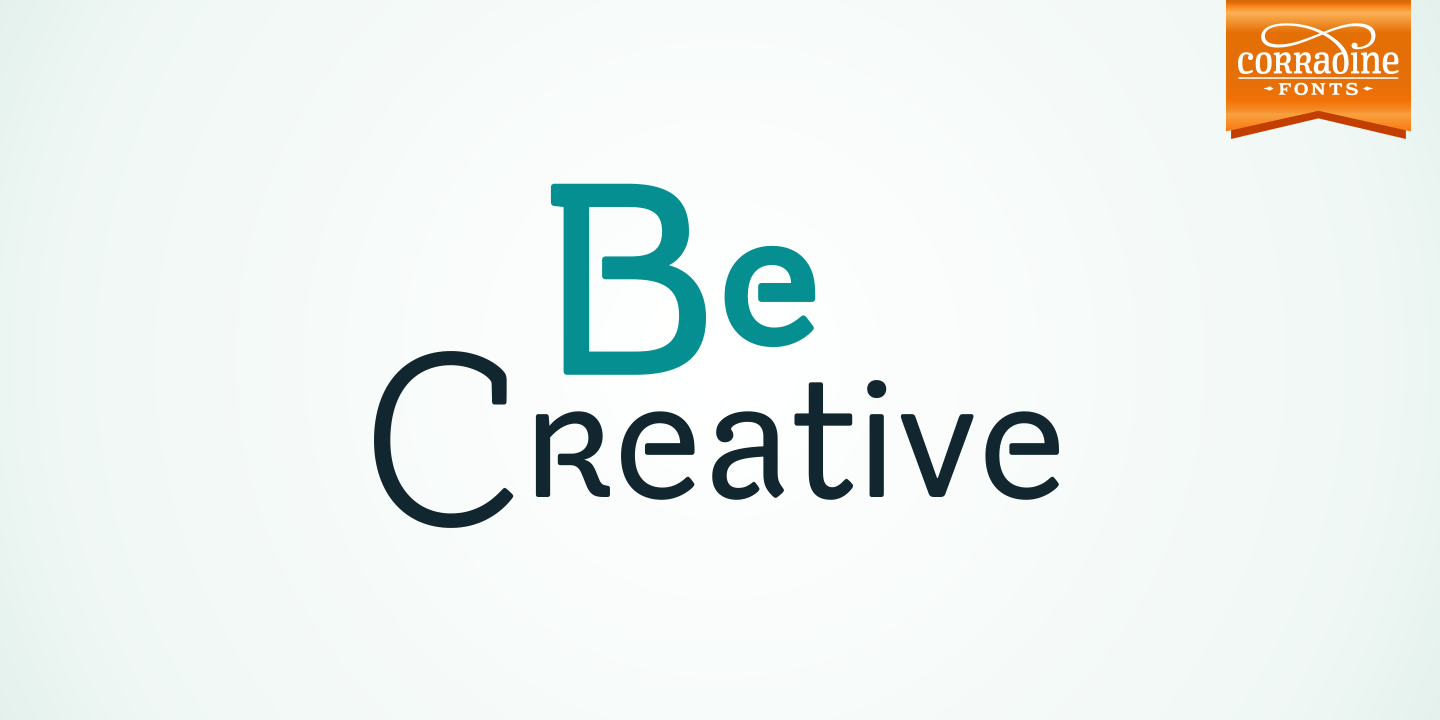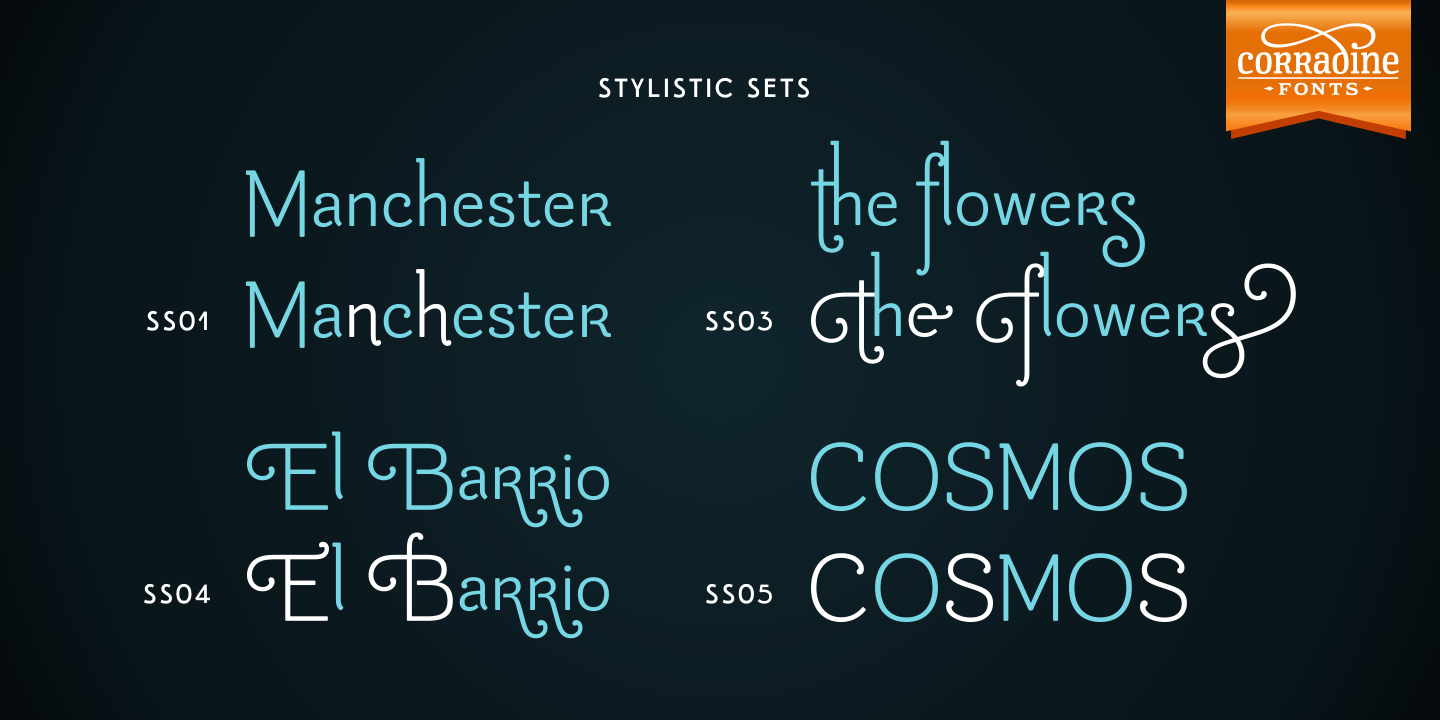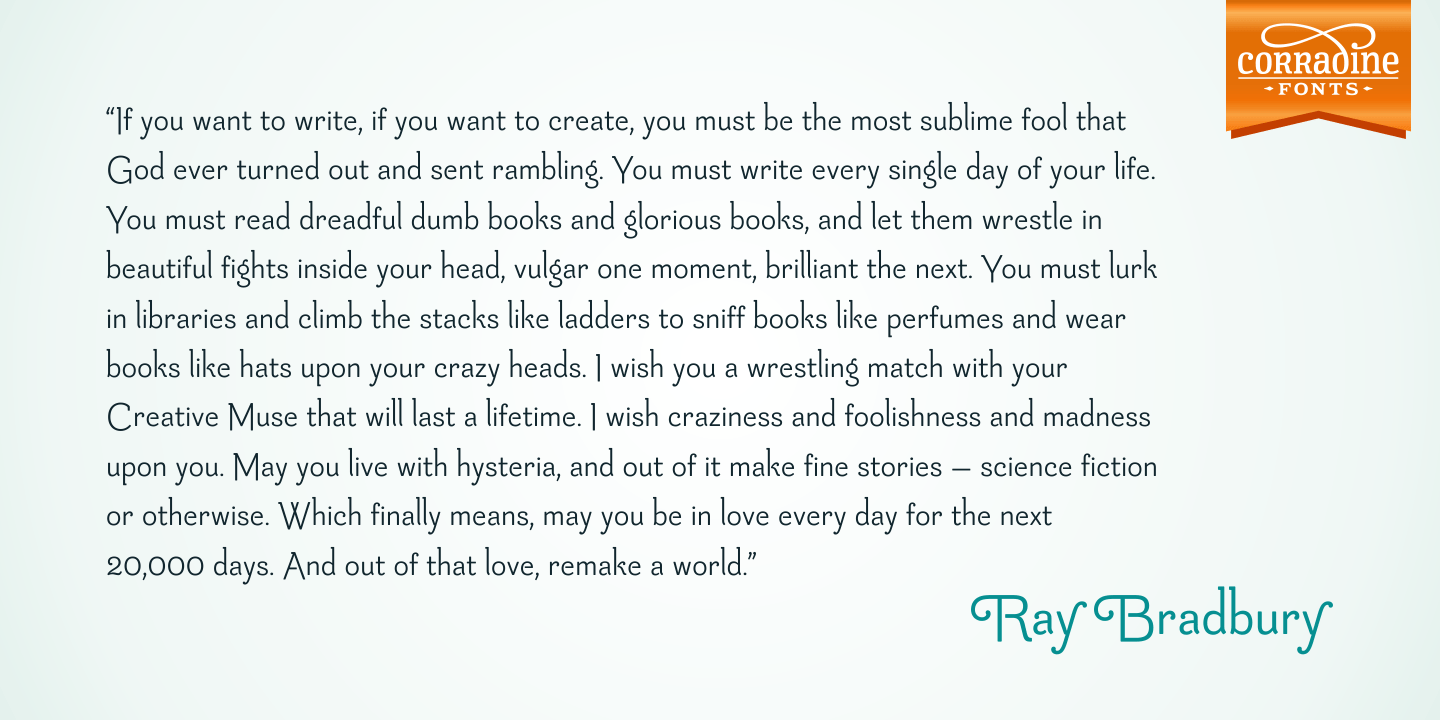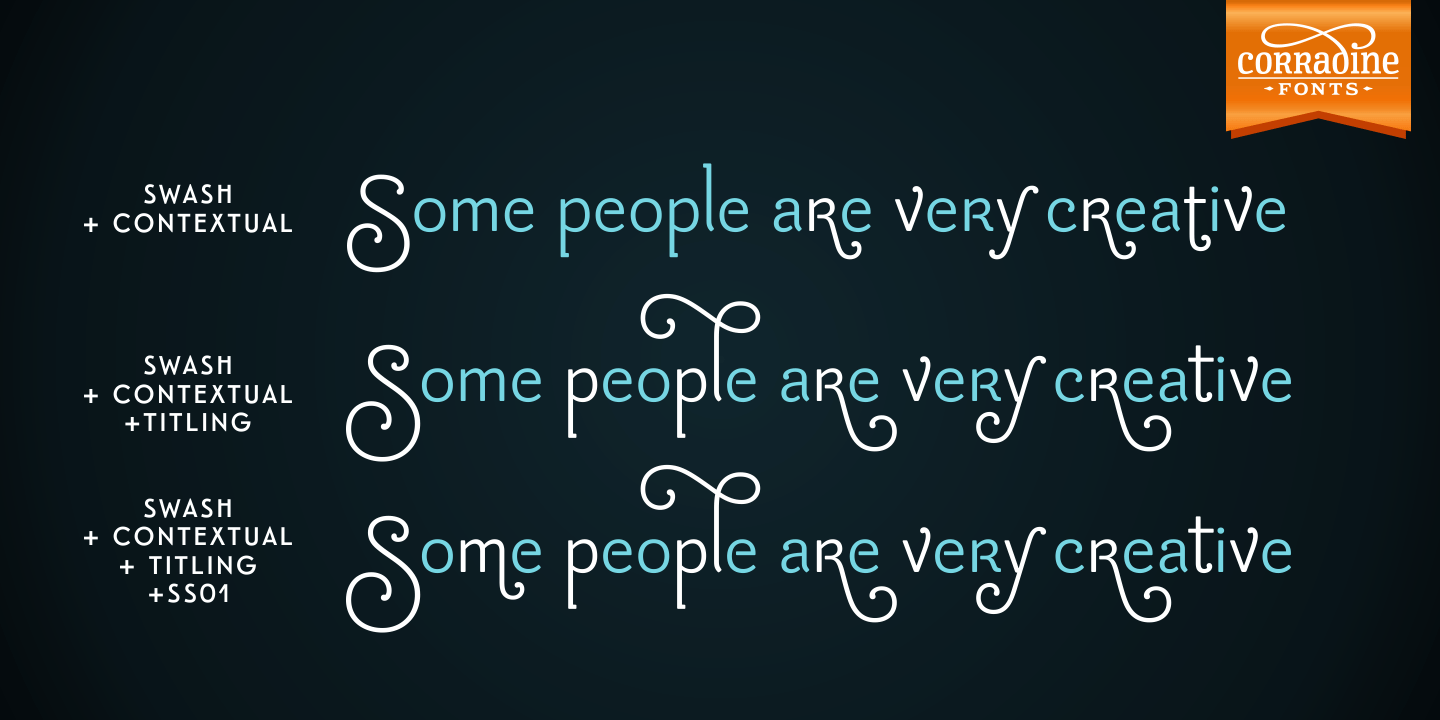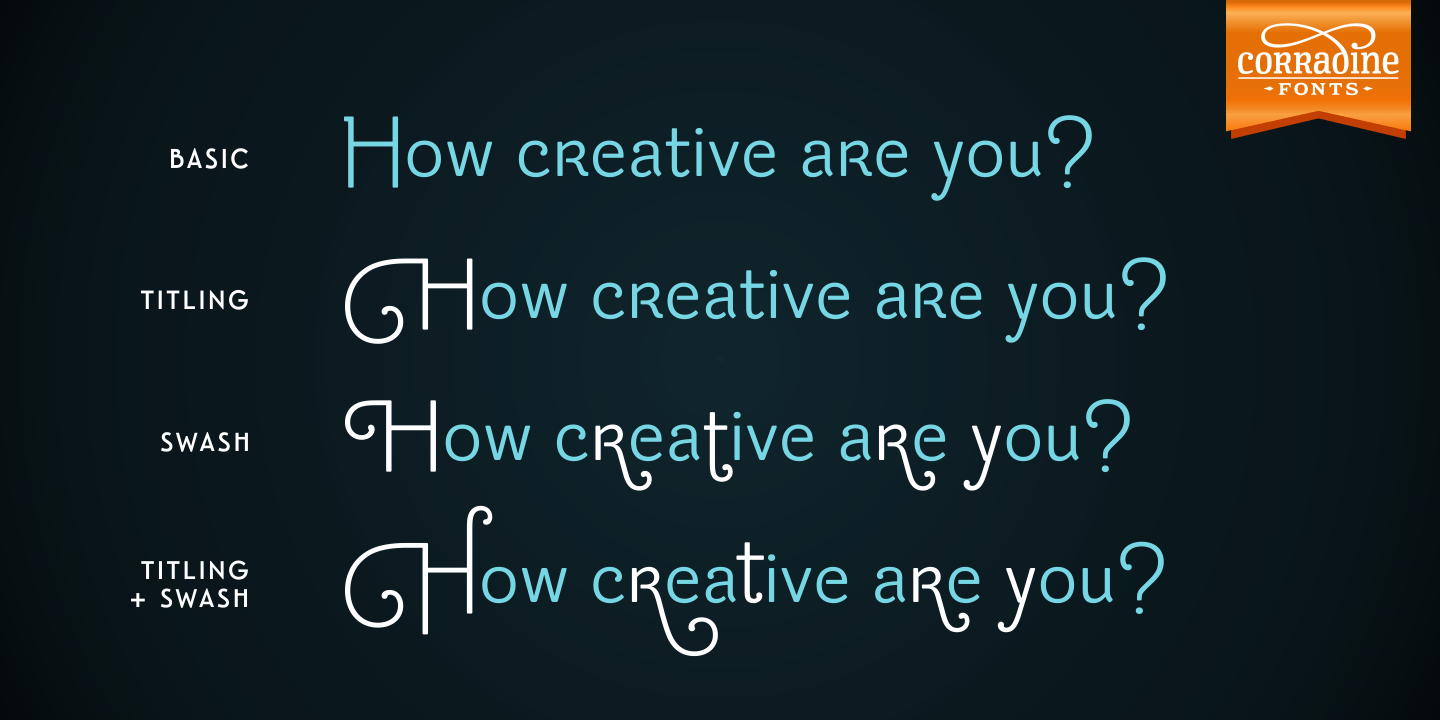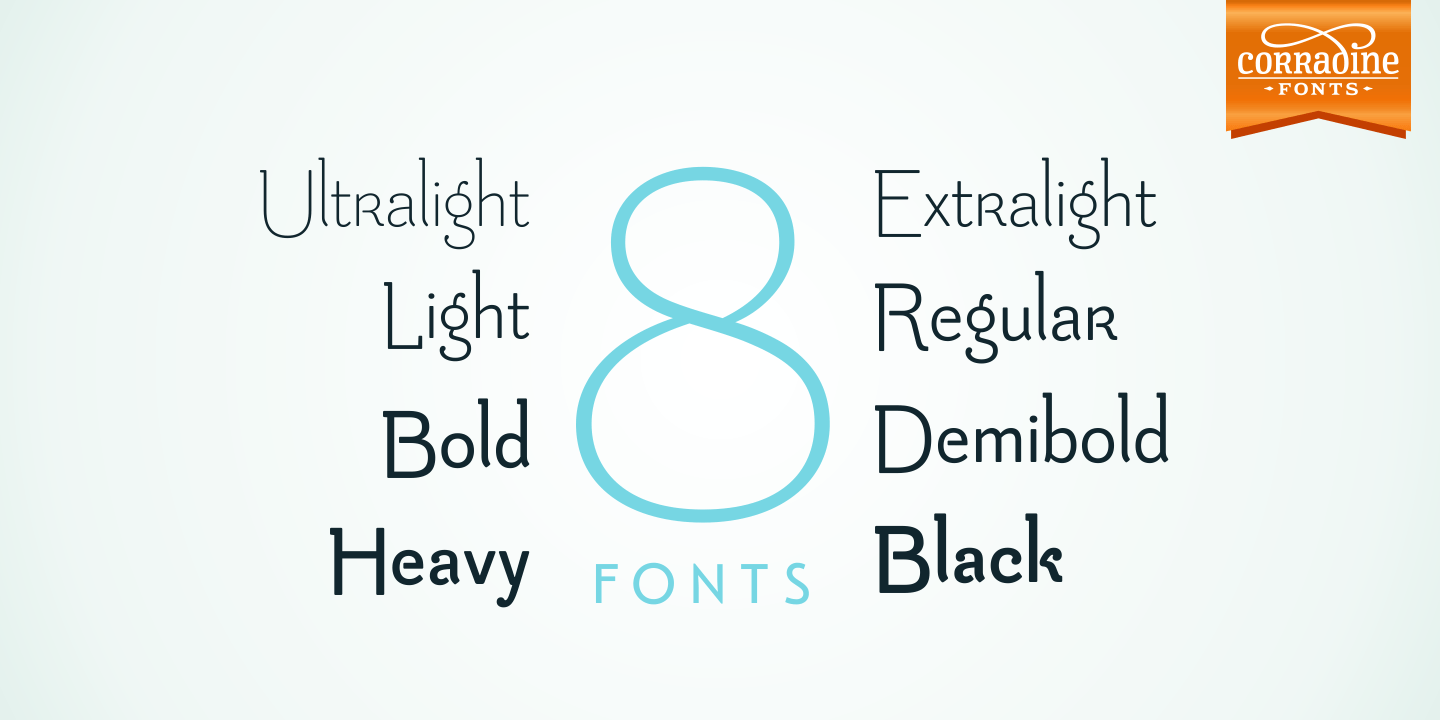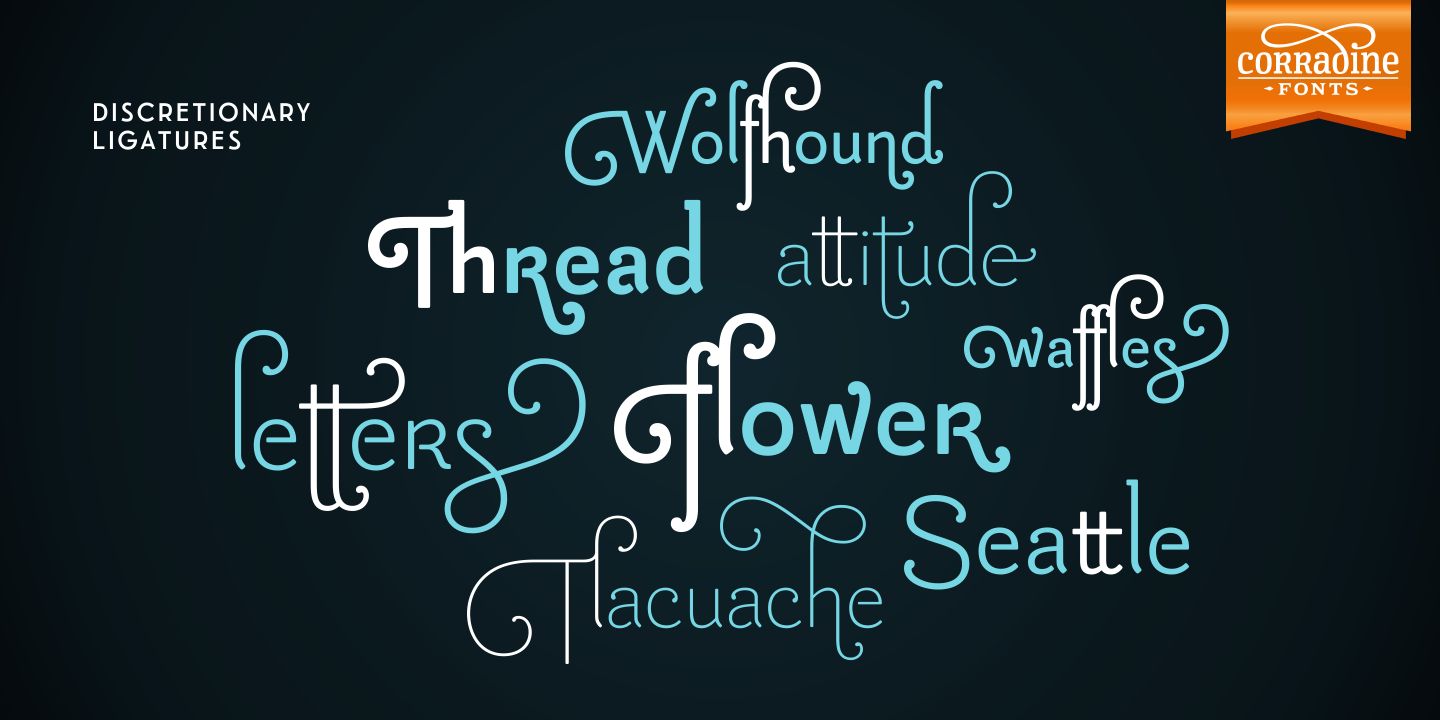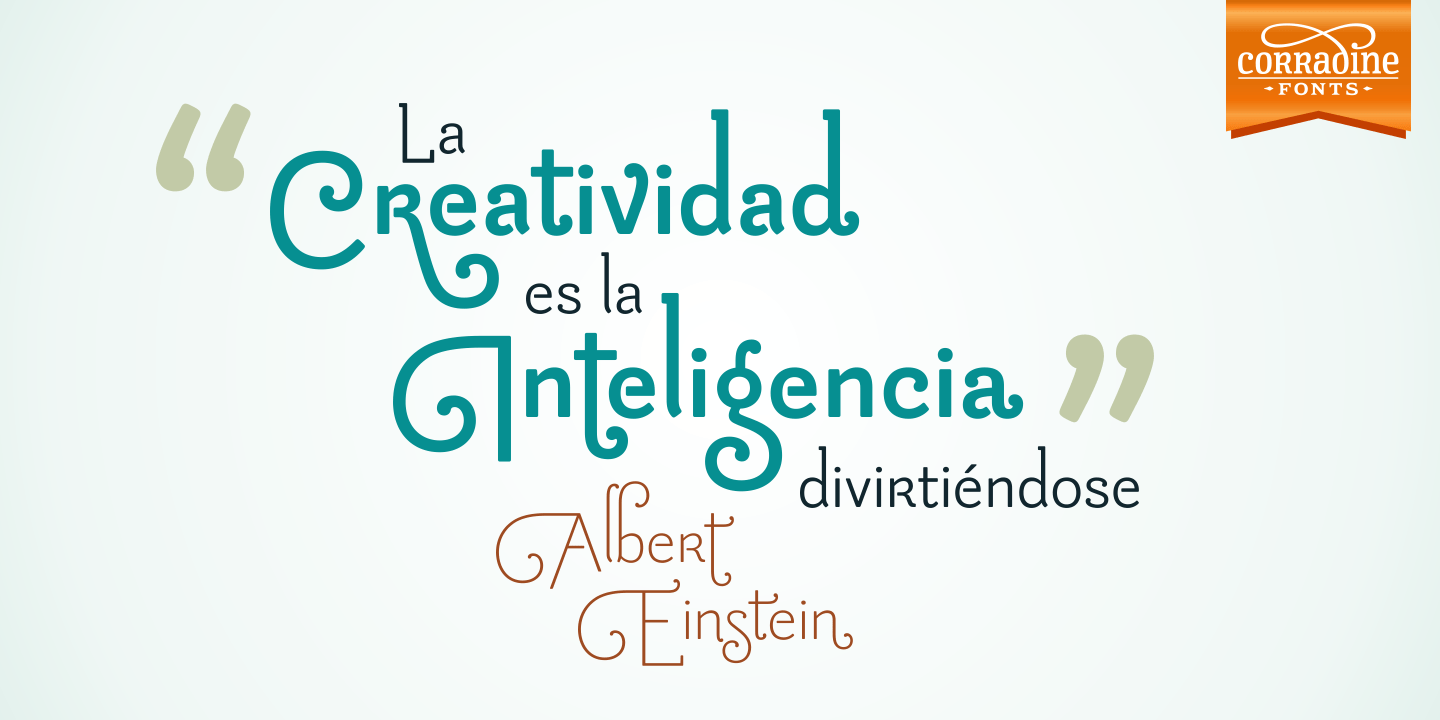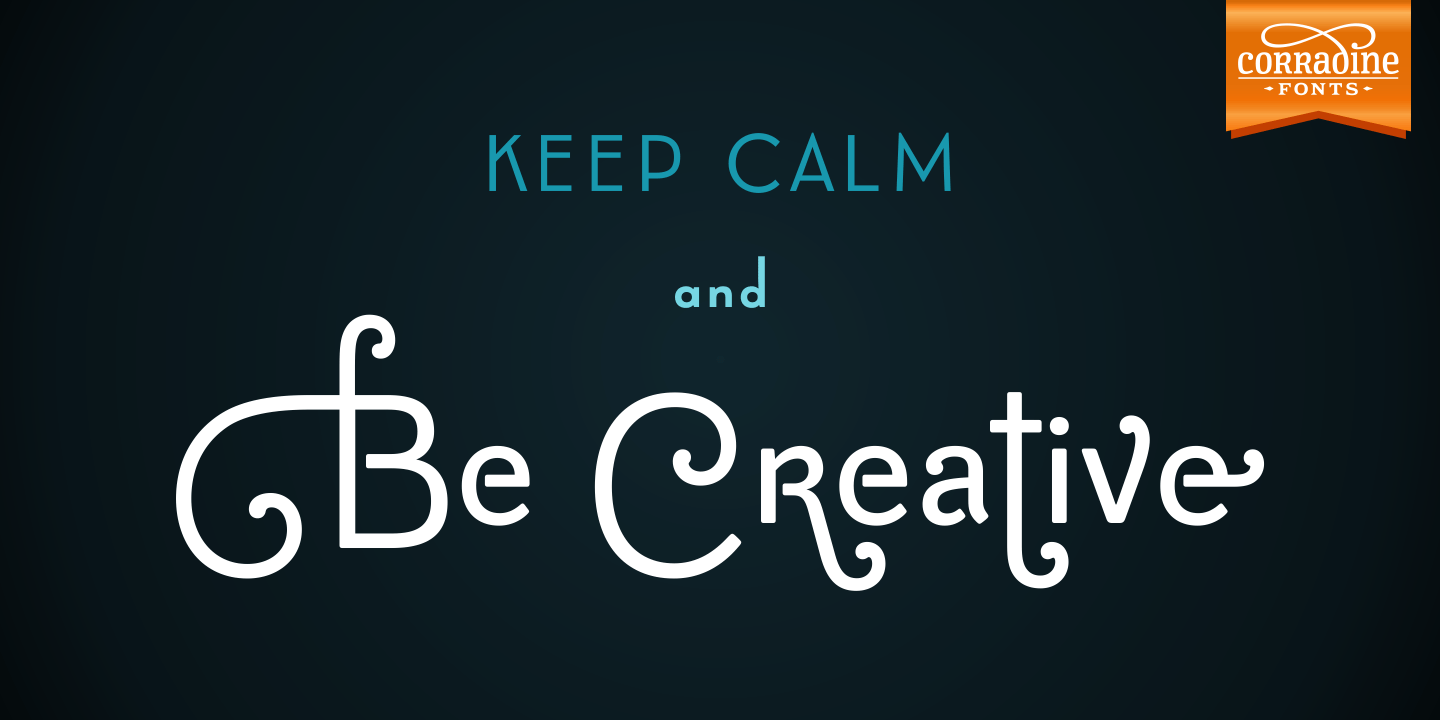
Be Creative
Font Family by Corradine Fonts
Based on the skeleton of the classic typeface from Corradine Fonts ?Mussica?, this softened semi-serif type family comes in eight useful weights and has many full functional Open Type features that allow you to play with the extension and type of the ornaments including three levels of swash caps and many ascender, descender, starting and ending forms for the lower case set. Use the Swashes and Titling features separately or mixed to extend the length of the swashes and apply the Contextual alternates feature to obtain wonderful smart swashes. If you prefer to use the common lowercase ?r?, instead the original one of the typeface, you could replace it just by applying the Stylistic Alternates feature. And finally you can enjoy the numerous discretionary ligatures that Be Creative has available to obtain a completely improved appearance of your design.